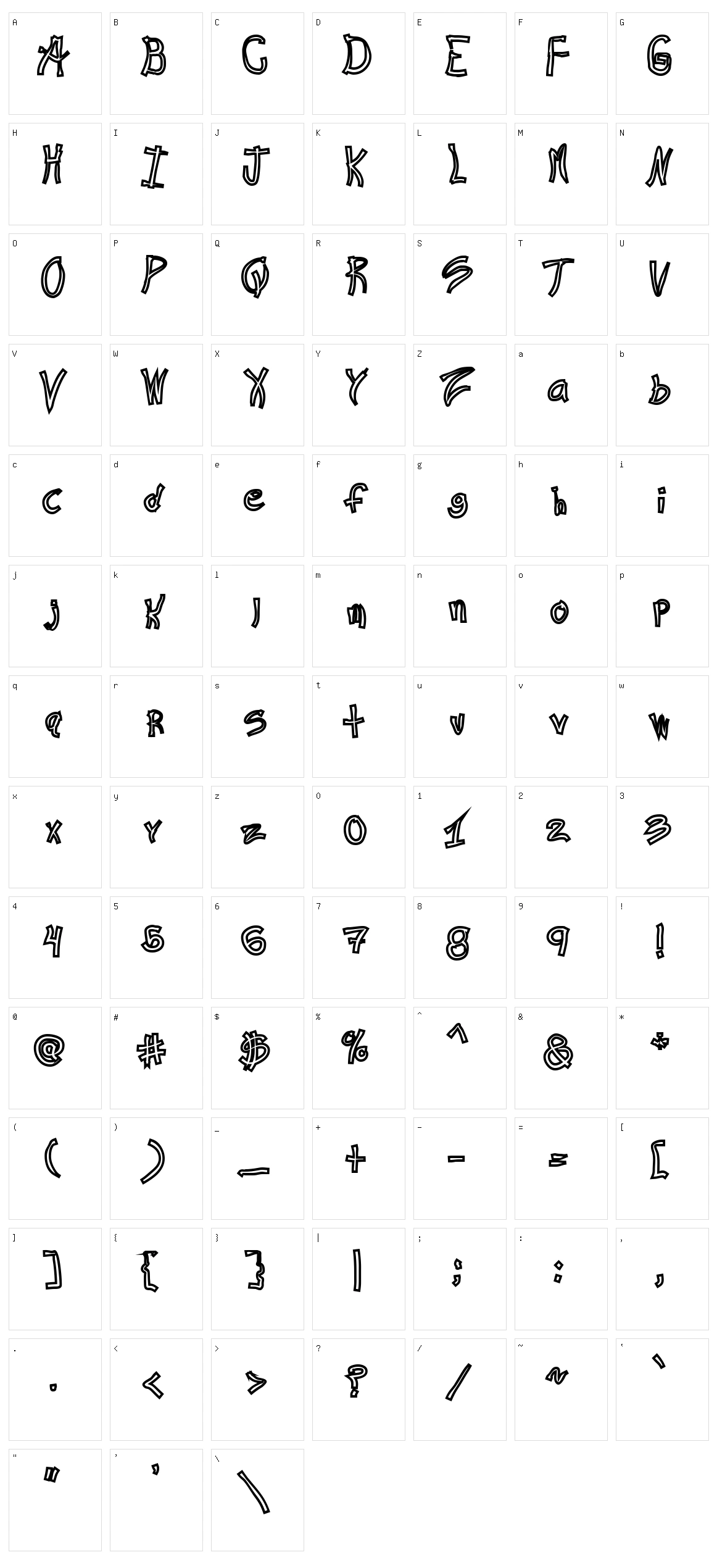
The free font Ra's Hand is carefully designed by Omega Font Labs, showcasing a thoughtful balance of creativity and usability and falls under the Script font style. When you download the ZIP file, it contains only 65.59 KB of font files, making it lightweight and quick to download. Please review the license details below to understand permitted usage and distribution rights. If license information is not available, we recommend using this font for personal projects only or contacting the author directly for commercial usage permissions.